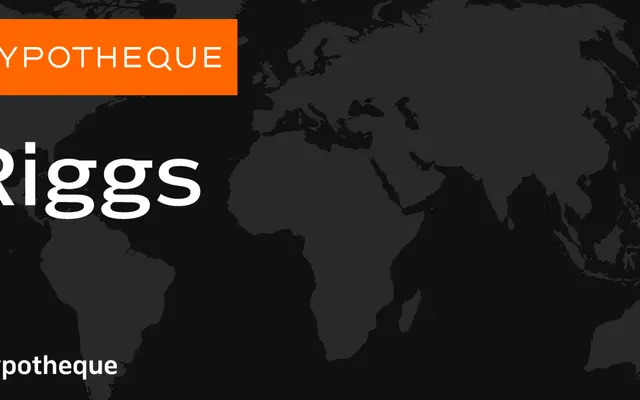
A structured sans-serif system from Typotheque spanning three widths and six weights, designed for demanding text and editorial applications.
The Riggs system is organised into three width families — standard, Condensed and Extended — each running from ExtraLight to Bold with matching italics, giving 36 styles in total. The width variants make it adaptable across tight and generous measures alike, from newspaper columns to signage. Each style is named after a world city, a conceit that nods to the font's global applicability across scripts and contexts.
The family's breadth of widths and weight range, combined with its naming conventions and structured system architecture, point to a humanist sans-serif intended for demanding editorial and wayfinding contexts.